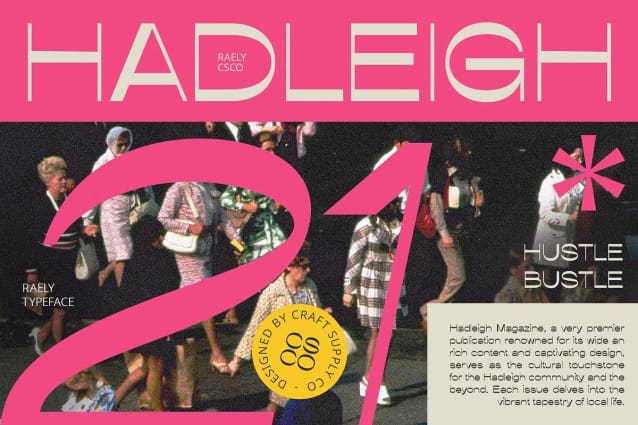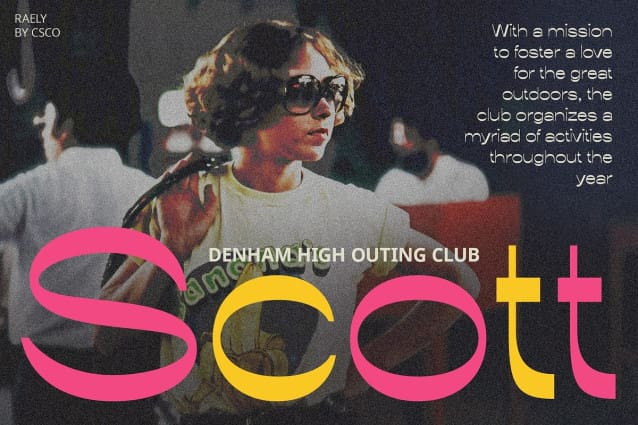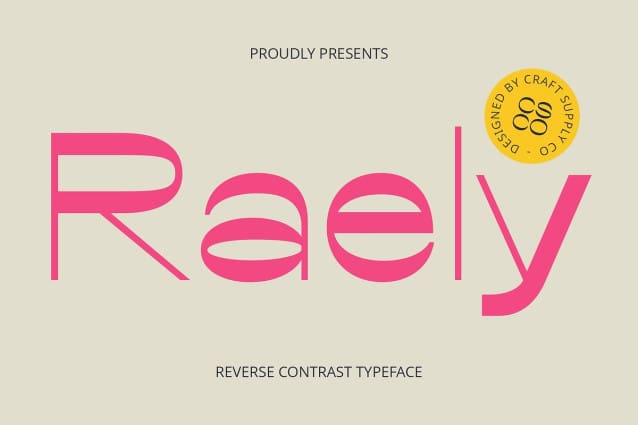
Raely Font
Raely Font is a sans serif font with a funky style, reverse contrast, and a retro vibe, perfect for stunning creative designs. Its unique design elements create a captivating and vibrant look, ideal for posters, branding, and other projects that require a bold and dynamic touch.
With its unconventional reverse contrast and funky details, Raely offers a fresh take on sans serif fonts. The retro vibe and distinctive design create a striking and memorable appearance, adding a touch of playfulness to any design project.
Whether you’re designing a standout advertisement or creating an eye-catching logo, Raely Font is sure to make an impression. Its funky style and reverse contrast make it perfect for displays that demand attention and convey a sense of creativity and nostalgia.
Despite its distinctive appearance, Raely Font is versatile and easy to use. The font works well in both large and small sizes, making it suitable for a variety of applications, from headlines and banners to body text and more. With its blend of retro style and funky design, Raely adds a unique and lively touch to any design.